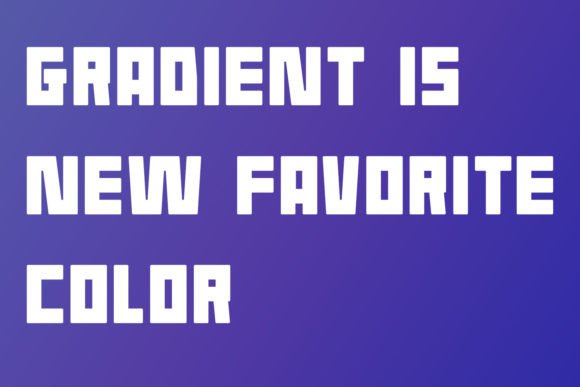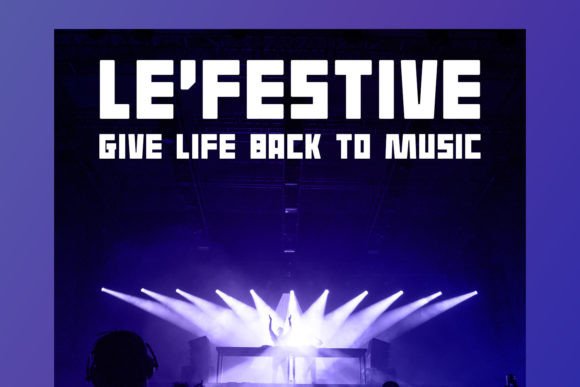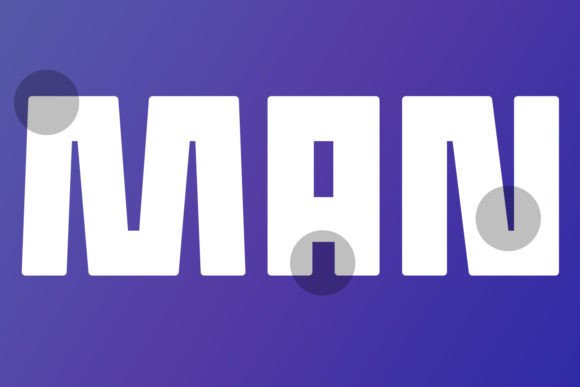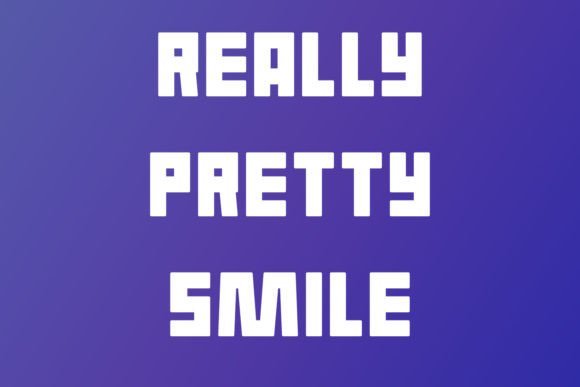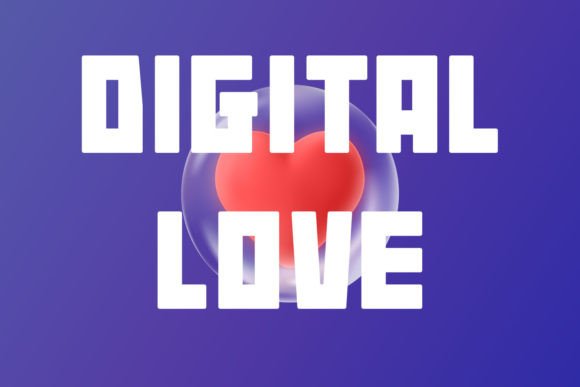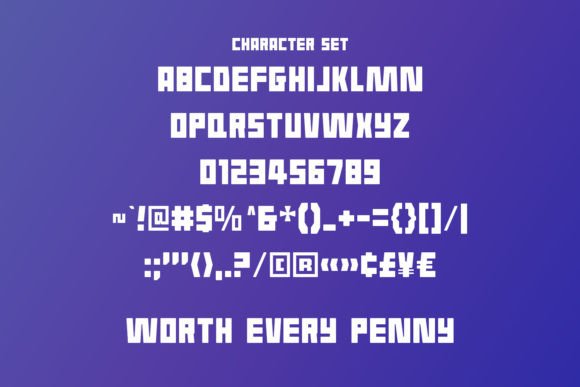
Introducing Delimo Font: The Ultimate Display Font for Bold Statements
In the world of typography, fonts play a crucial role in conveying messages, expressing emotions, and creating lasting impressions. For designers and crafters, finding the perfect font can be a daunting task, especially when it comes to making a bold statement. That’s where Delimo Font comes in – a modern and bold display font designed to turn heads and leave a lasting impact.
The Power of Delimo Font
Delimo Font is a carefully crafted display font that exudes strength, confidence, and creativity. Its sharp edges and clean lines give it a rugged yet refined look, making it perfect for eye-catching headlines, attention-grabbing designs, and bold statements. The unique shapes and proportions of Delimo Font add a touch of originality, setting it apart from other fonts in its category.
Key Features of Delimo Font
• Modern and Bold: Delimo Font is designed to make a statement with its bold and modern aesthetic.
• Sharp Edges and Clean Lines: The font’s sharp edges and clean lines convey strength and confidence.
• Unique Shapes and Proportions: Delimo Font’s unique shapes and proportions add a touch of creativity and originality.
• Attention-Grabbing: Perfect for eye-catching headlines, attention-grabbing designs, and bold statements.
Use Cases for Delimo Font
Delimo Font is an incredibly versatile font that can be used in a variety of design projects, including:
• Headlines and Titles: Use Delimo Font to create bold and attention-grabbing headlines that make a statement.
• Logos and Branding: Delimo Font is perfect for creating unique and memorable logos that convey strength and confidence.
• Posters and Flyers: Add a touch of creativity and originality to your posters and flyers with Delimo Font.
• Digital Media: Use Delimo Font in your digital media projects, such as social media graphics, videos, and presentations.
Benefits of Using Delimo Font
By using Delimo Font in your design projects, you can:
• Create a Lasting Impression: Delimo Font is designed to leave a lasting impression on your audience.
• Stand Out from the Crowd: With its unique shapes and proportions, Delimo Font helps you stand out from the crowd.
• Convey Strength and Confidence: Delimo Font’s sharp edges and clean lines convey strength and confidence, making it perfect for bold statements.
Tips for Using Delimo Font
To get the most out of Delimo Font, follow these tips:
• Use it Sparingly: Delimo Font is a bold font, so use it sparingly to avoid overwhelming your design.
• Pair it with Other Fonts: Pair Delimo Font with other fonts to create a unique and visually appealing design.
• Experiment with Colors: Experiment with different colors to find the perfect combination that complements Delimo Font.
In conclusion, Delimo Font is a powerful and versatile display font that can help you make a bold statement in your design projects. With its sharp edges, clean lines, and unique shapes and proportions, Delimo Font is perfect for eye-catching headlines, attention-grabbing designs, and bold statements. Whether you’re a designer or crafter, Delimo Font is an excellent addition to your font library.